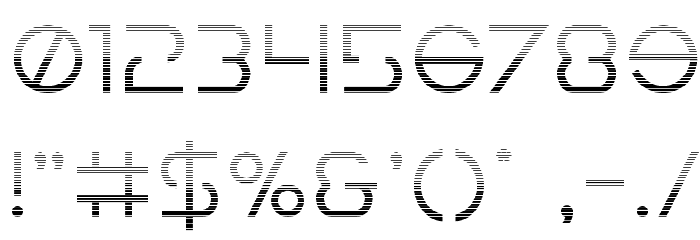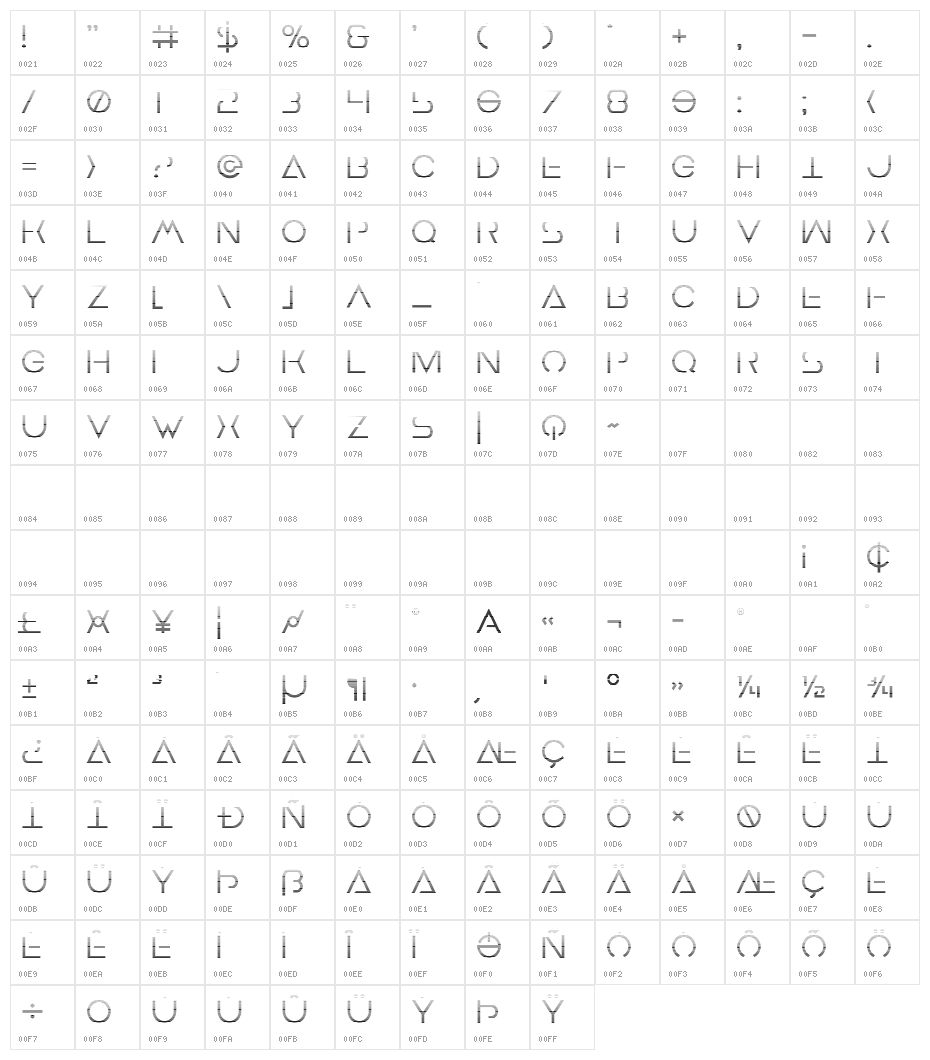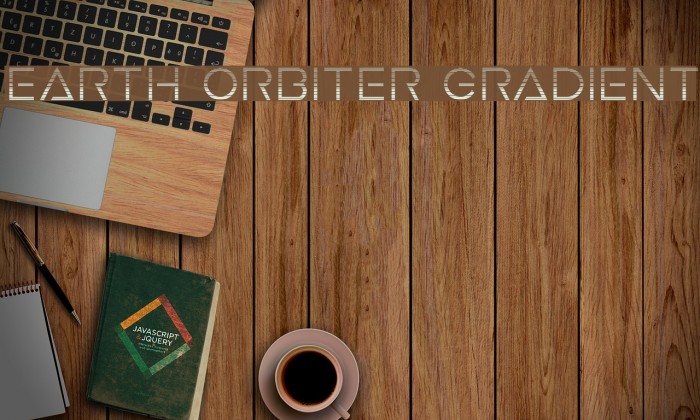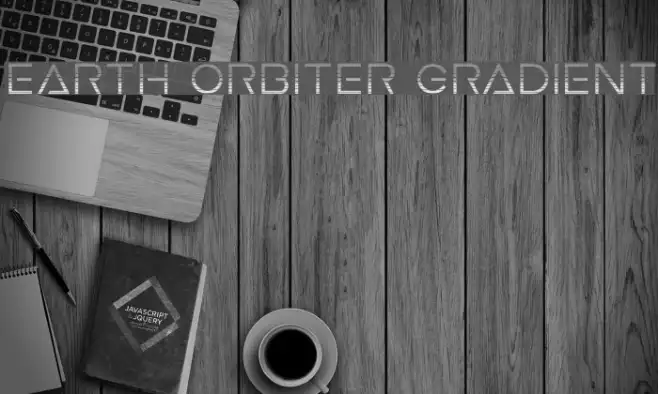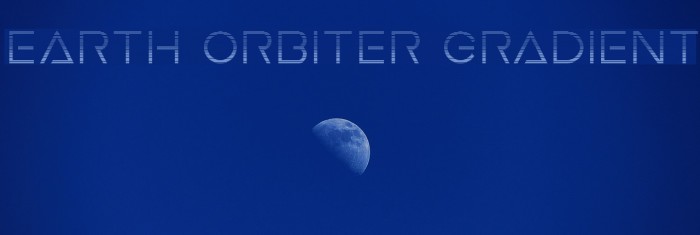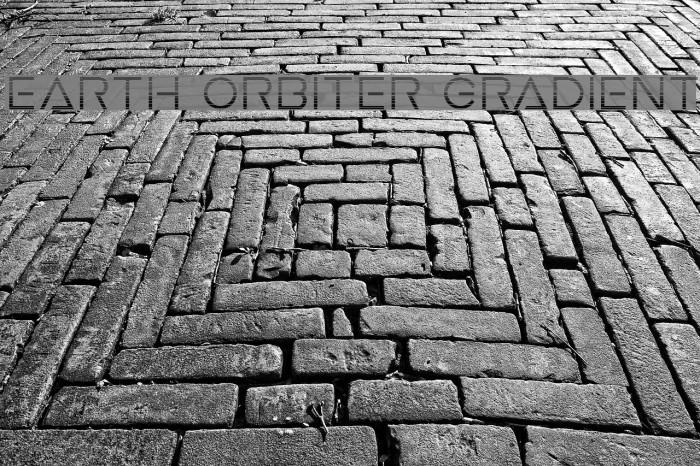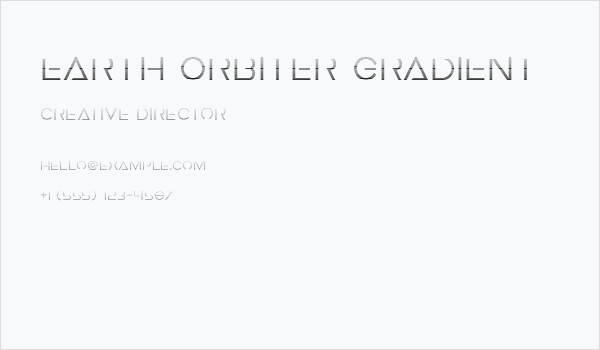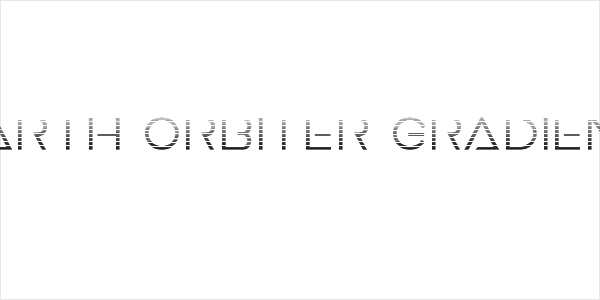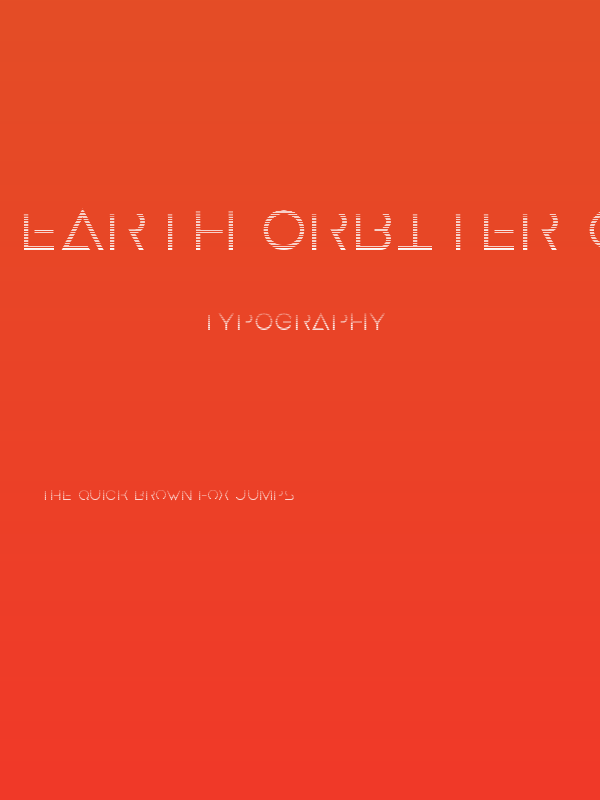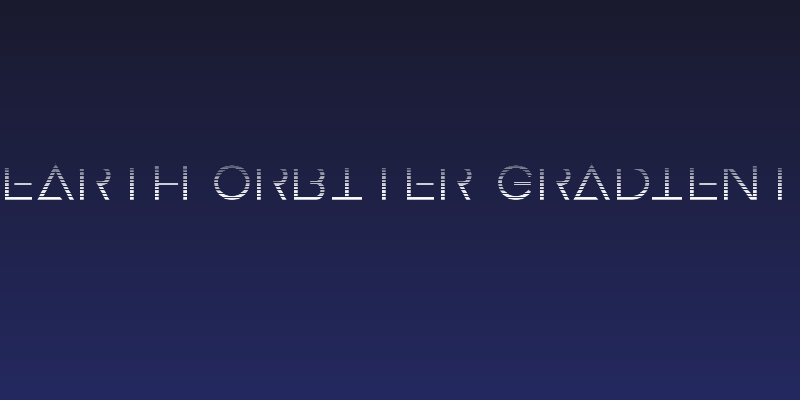
Earth Orbiter Gradient Font
Earth Orbiter Gradient Description
This font features a futuristic and geometric design with a distinct gradient effect that gives it a dynamic and modern appearance. The characters are constructed with clean, sharp lines and a consistent stroke width, creating a sense of uniformity and precision. The gradient effect adds depth and visual interest, making it stand out in digital and print media. The uppercase and lowercase letters maintain a cohesive style, while the numerals and special characters complement the overall aesthetic. This font is ideal for projects that require a contemporary and innovative look.
Proposed ProjectsIdeal for tech branding, sci-fi posters, digital interfaces, and modern advertising.